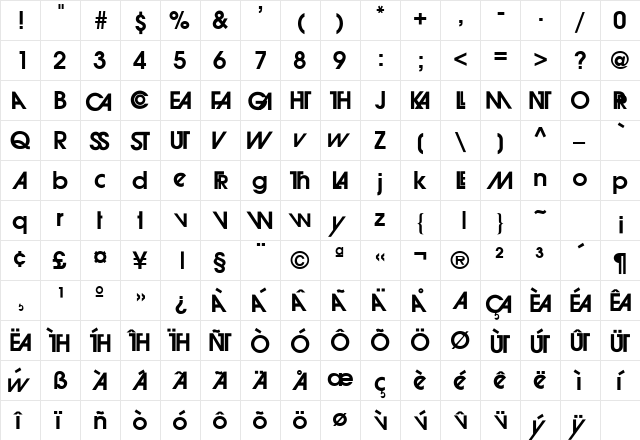
Avant Garde Alternates Bold
Design Context for Avant Garde Alternates Typeface
Avant Garde Alternates is a composed and adaptable typeface that performs quietly and consistently across a wide range of design contexts. The heavy weight commands attention and anchors typographic hierarchies.